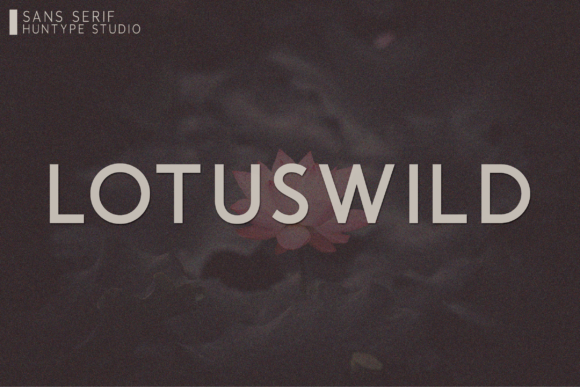
Introducing Lotuswild Font: The Epitome of Elegance for Your Design Endeavors
In a world saturated with endless font options, Lotuswild Font emerges as a beacon of beauty and distinction, captivating the hearts of designers and typography enthusiasts alike. This extraordinary sans serif font, meticulously crafted by the renowned Huntype, is more than just a collection of letters – it's an artistic masterpiece that will elevate your designs to new heights of sophistication and allure.
With its smooth, clean lines and a hint of alluring contrast, Lotuswild Font exudes an air of timeless elegance that transcends fleeting trends. Each character, meticulously shaped with precision, carries the weight of history and the promise of endless possibilities. Whether you're crafting logos that demand attention, branding that exudes professionalism, or web headings that command respect, Lotuswild Font is your ultimate weapon of choice.
Immerse yourself in the world of Lotuswild Font and discover a symphony of visual harmony. Its versatility knows no bounds, effortlessly adapting to a myriad of creative contexts. Let your imagination run wild as you explore the boundless potential of this typographic gem. From delicate love quotes that whisper sweet nothings to bold and powerful statements that leave an indelible mark, Lotuswild Font amplifies your message with unmatched eloquence.
As you embark on your creative journey with Lotuswild Font, prepare to be mesmerized by its ability to transform ordinary words into extraordinary expressions of art. Its all-caps design commands attention, demanding respect and admiration wherever it graces the digital landscape. Whether you're a seasoned designer seeking to leave a lasting impression or a budding artist eager to make your mark, Lotuswild Font is your trusted companion, guiding you towards typographic excellence.
Join the ranks of discerning designers who have embraced Lotuswild Font as their secret weapon. Embrace the power of beauty, elegance, and versatility, and witness the transformation of your designs into captivating works of art. Let Lotuswild Font be your muse, inspiring you to create visual masterpieces that resonate with your audience and leave them breathless.